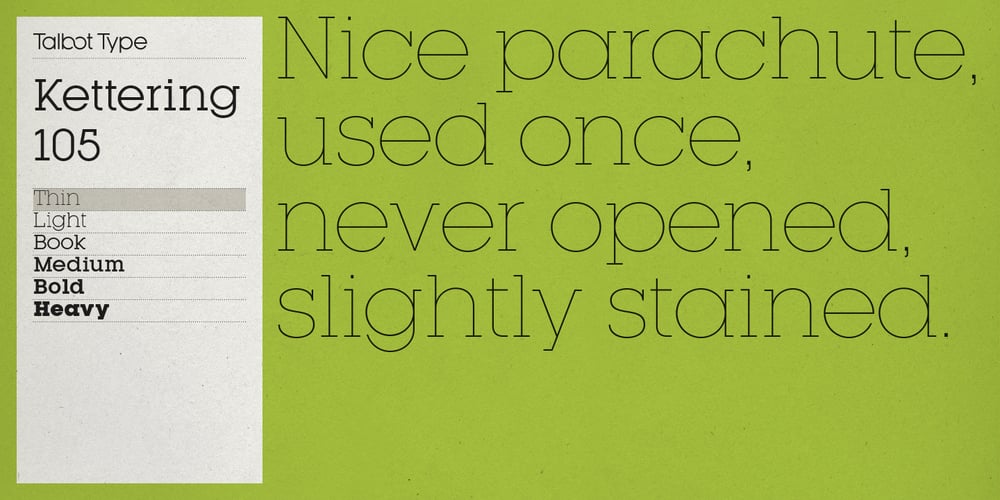
Kettering 105
Kettering 105 font
Kettering 105 Font Family was designed by Adrian Talbot and published by Talbot Type. Kettering 105 contains 12 styles and family package options. Kettering 105 is inspired by the classic, geometric slab-serifs such as Lubalin, but has shallower ascenders and descenders for a more compact look. It’s a versatile, modern slab-serif, highly legible as a text font and with a clean, elegant look as a display font at larger sizes. It includes old style non-aligning (lower case) numbers, both proportional and tabular, as well as accented characters for Central European languages. The Kettering 105 family comprises of six weights and is closely related to Kettering 205, its more intensely Deco flavoured cousin.